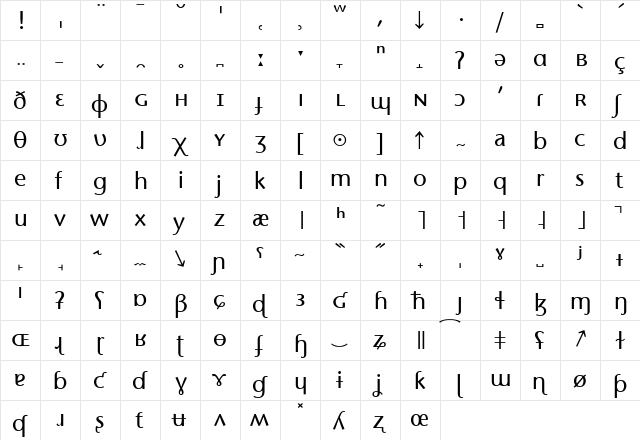
Stone Sans PhoneticIPA Regular Font Preview
Stone Sans PhoneticIPA Regular
Design Context for Stone Sans PhoneticIPA Typeface
Stone Sans PhoneticIPA is a composed and adaptable typeface that performs quietly and consistently across a wide range of design contexts.